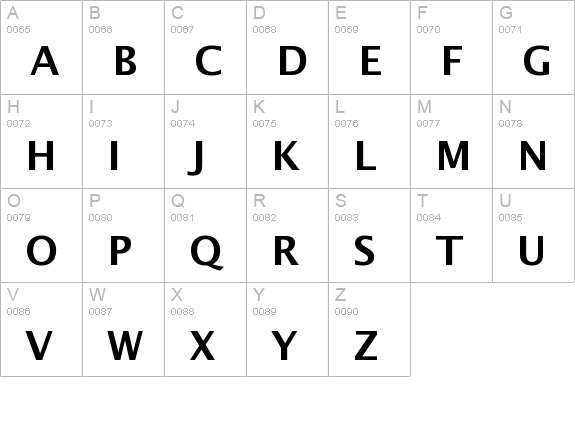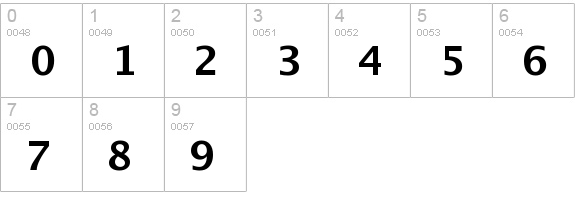
Lucida Grande Bold is a strong, high-contrast variant in the Lucida typeface family \xE2\x80\x94 well suited to headlines, attention-grabbing titles, and strong calls-to-action.
Lucida Grande Bold is a striking and impactful font that commands attention with its bold weight and clean, modern lines. Perfect for making a statement or emphasizing important text, this font exudes confidence and professionalism. Its strong presence on the page ensures that your message will not be overlooked. The Lucida Grande Bold font is versatile and can be used across a variety of design projects, from branding materials to website headers to printed materials. Its bold weight adds gravitas and makes a bold statement, making it a great choice for headlines and titles. Best of all, Lucida Grande Bold is available for free download at FontsMarket.com, making it easily accessible for designers and creatives looking to elevate their projects with a bold and impactful font. Don't miss out on the opportunity to add this versatile and eye-catching font to your design toolkit.